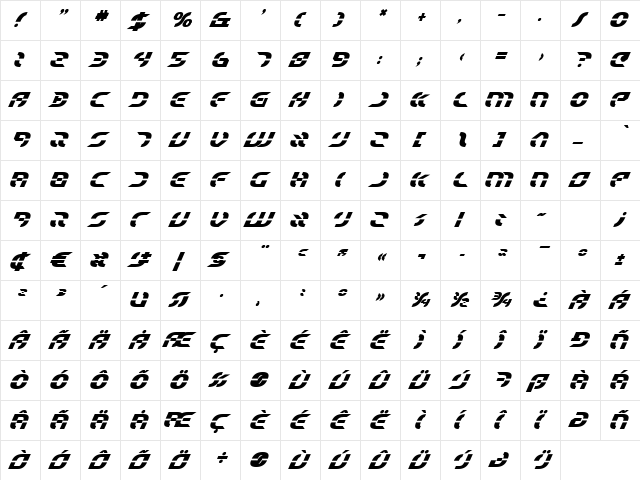
Starfighter Bold Italic Bold Italic
Design Context for Starfighter Bold Italic Typeface
Starfighter Bold Italic is a composed and adaptable typeface that performs quietly and consistently across a wide range of design contexts. The slanted form adds forward momentum and visual energy. Its bold stroke weight gives it real presence on the page.